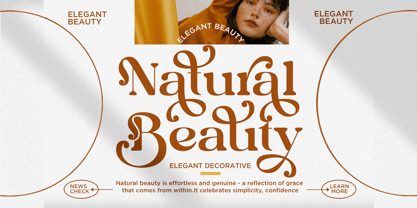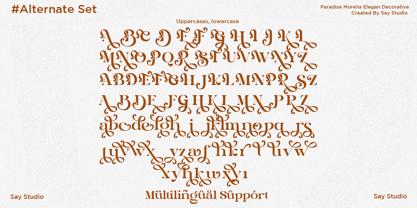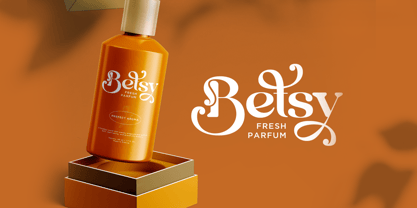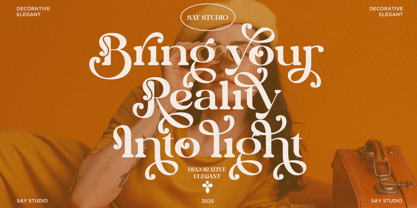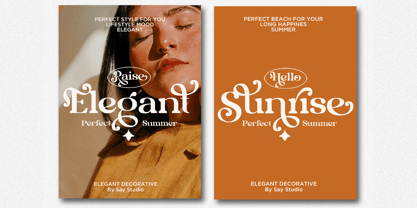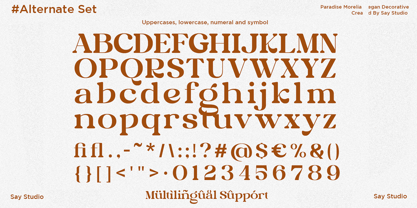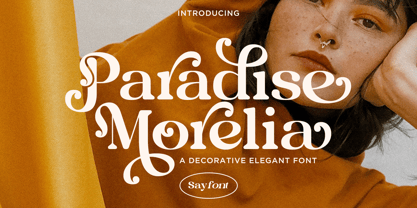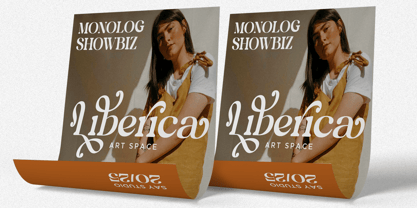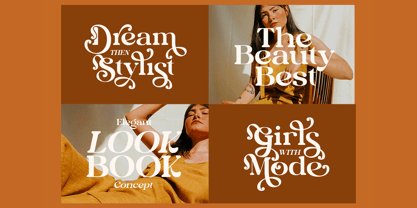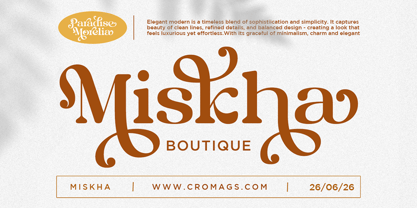
Paradise Morelia
by Sayfont
The Paradise Morelia Font Family was designed by Nur Rohman and published by Sayfont. Paradise Morelia contains 2 styles and family package options. More about this family
Paradise Morelia is a decorative elegant font featuring expressive curves, artistic swashes, and a luxurious vintage flair. Designed for standout branding, editorial titles, logo designs, packaging, wedding invitations, and creative projects seeking a bold yet refined aesthetic. Its unique ornamental style brings a touch of sophistication and artistic charm, making every layout look premium, stylish, and unforgettable. File Included :- Stylistic Alternates Uppercase - Stylistic Alternates Lowercase - Multilingual Support Thanks, Have a nice day Sayfont
Designers: Nur Rohman
Foundry: Sayfont